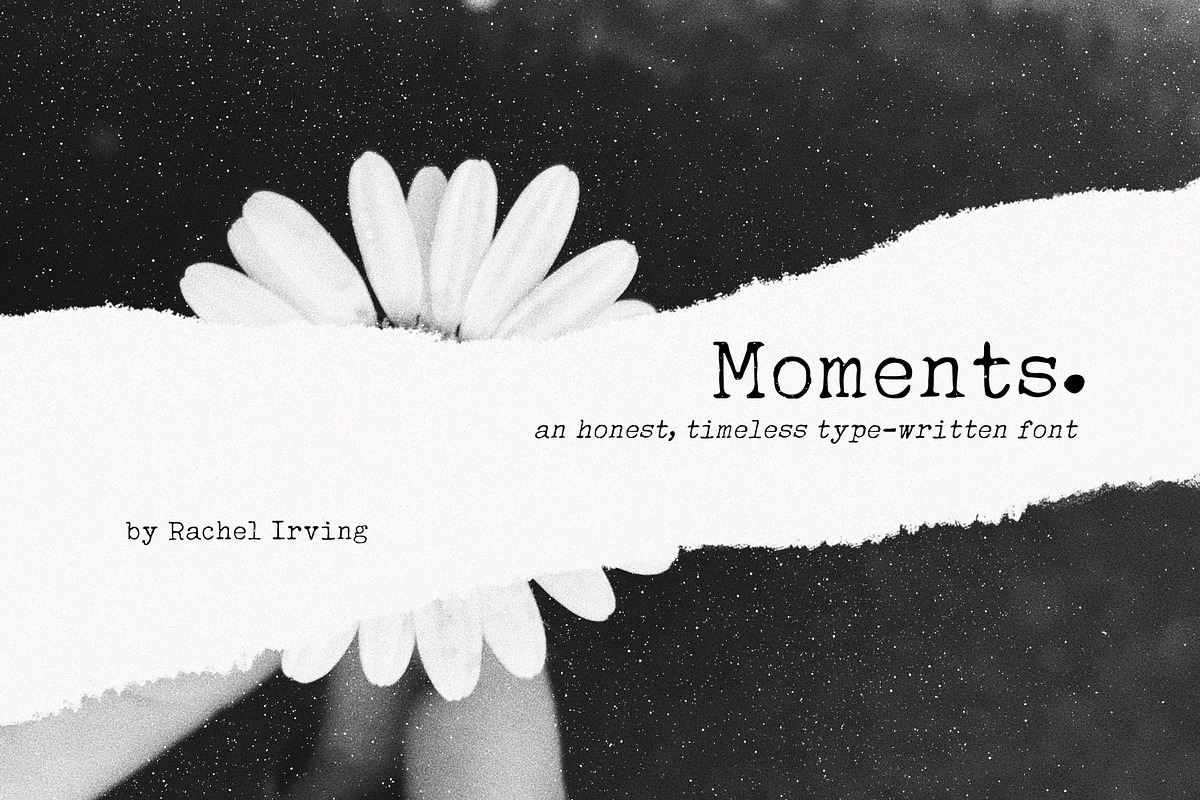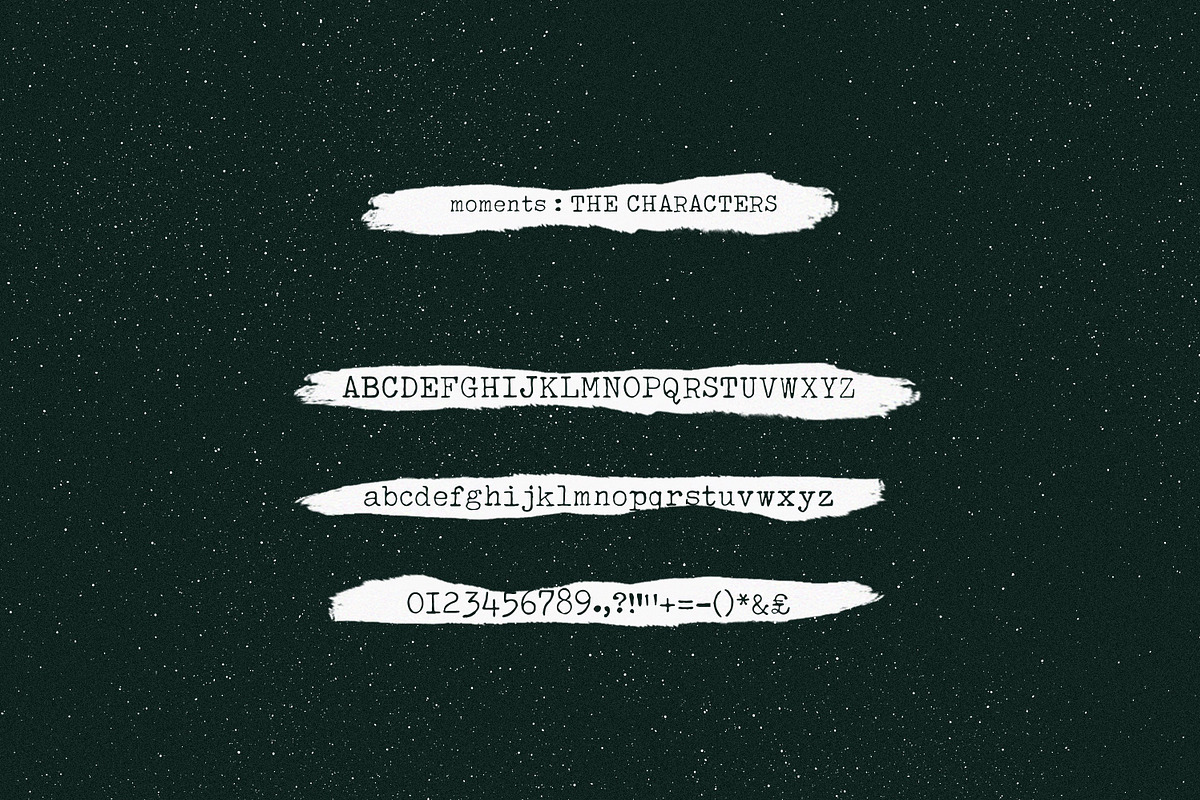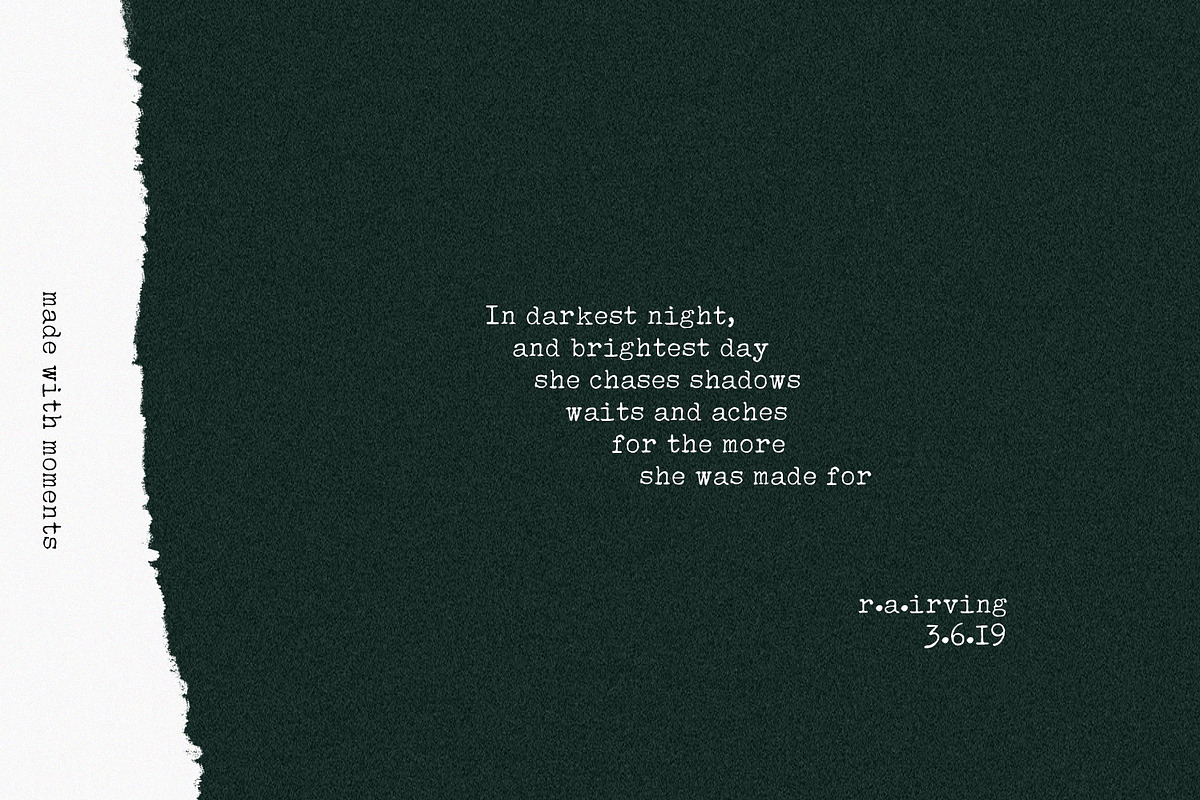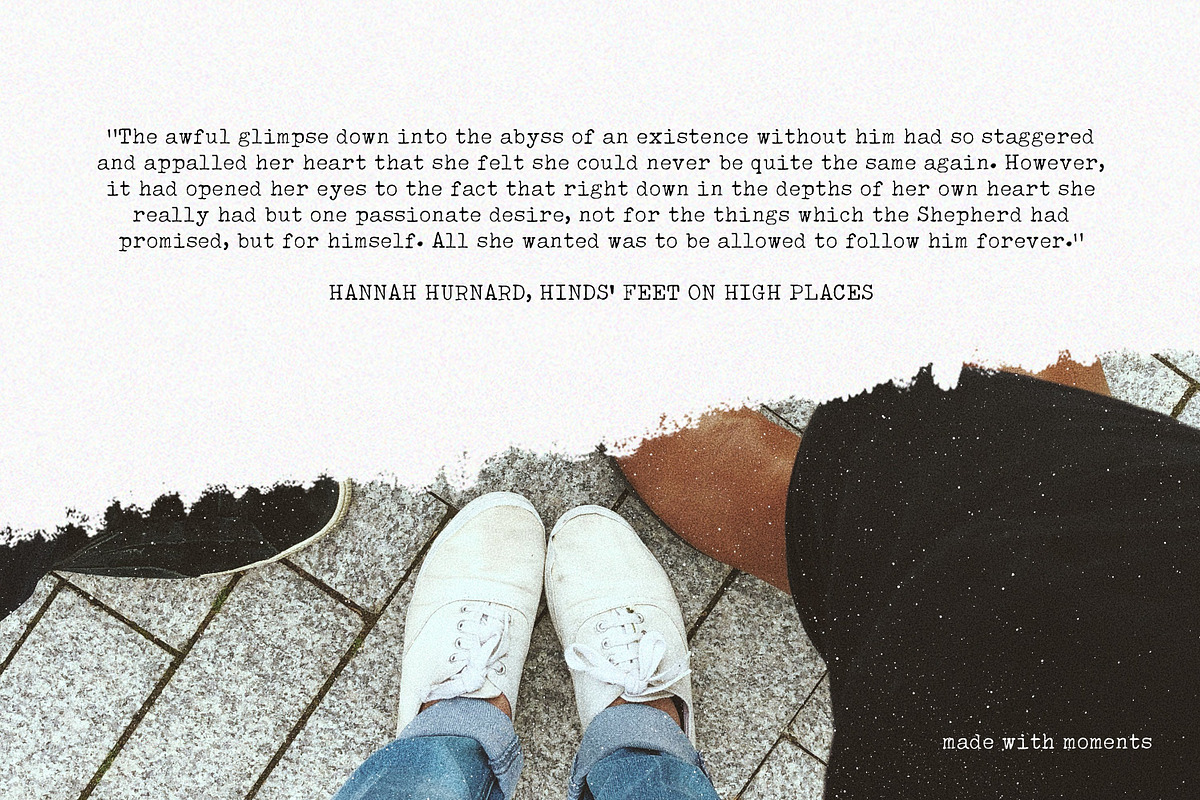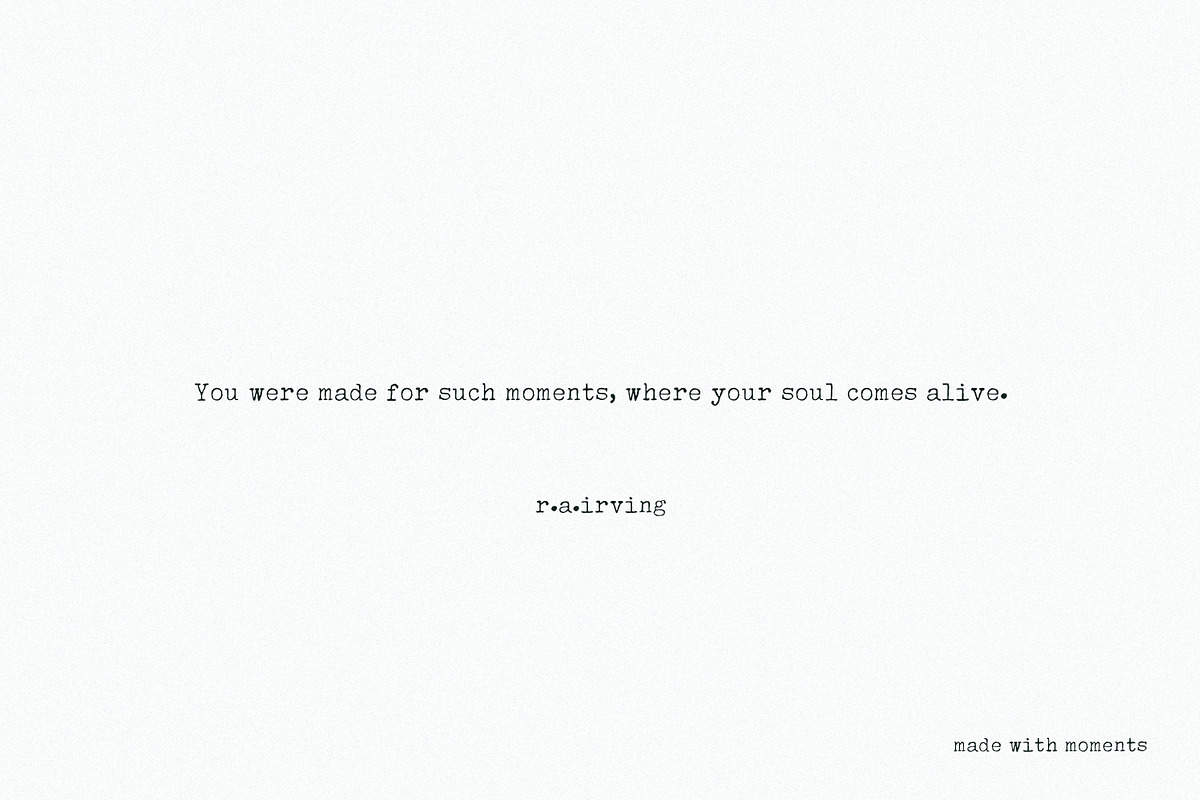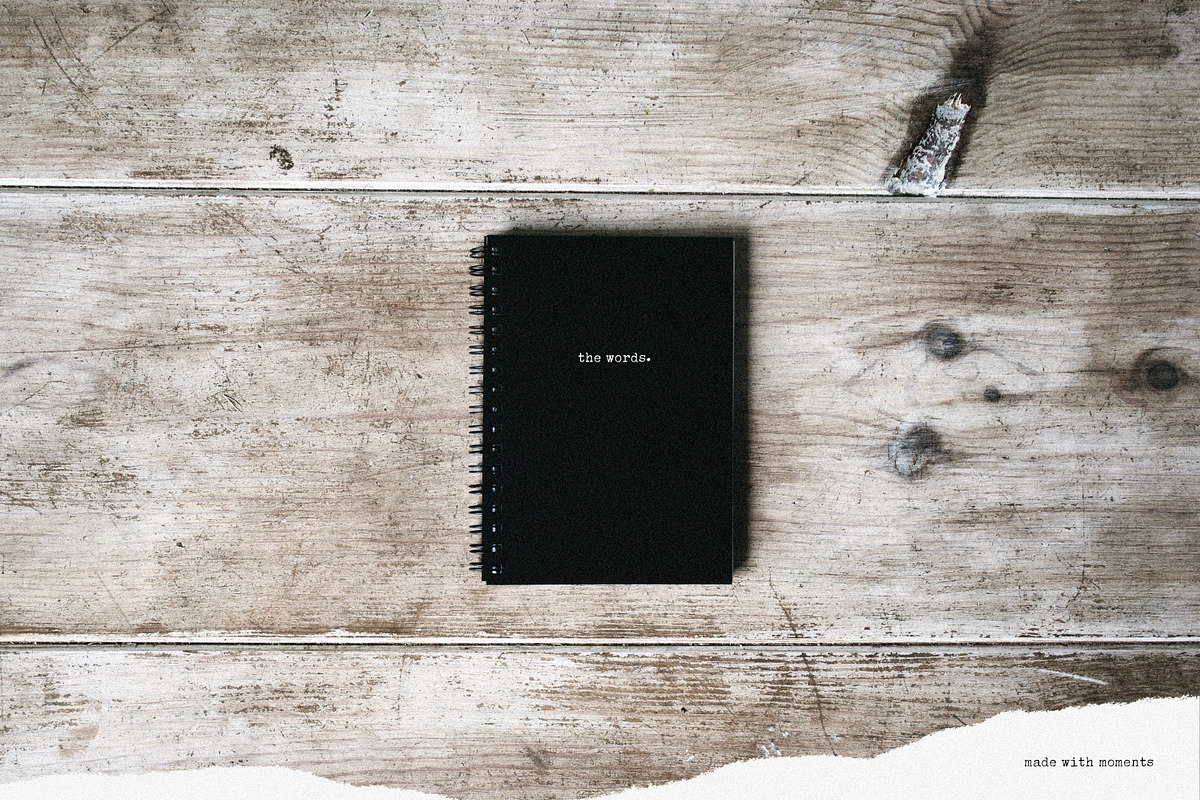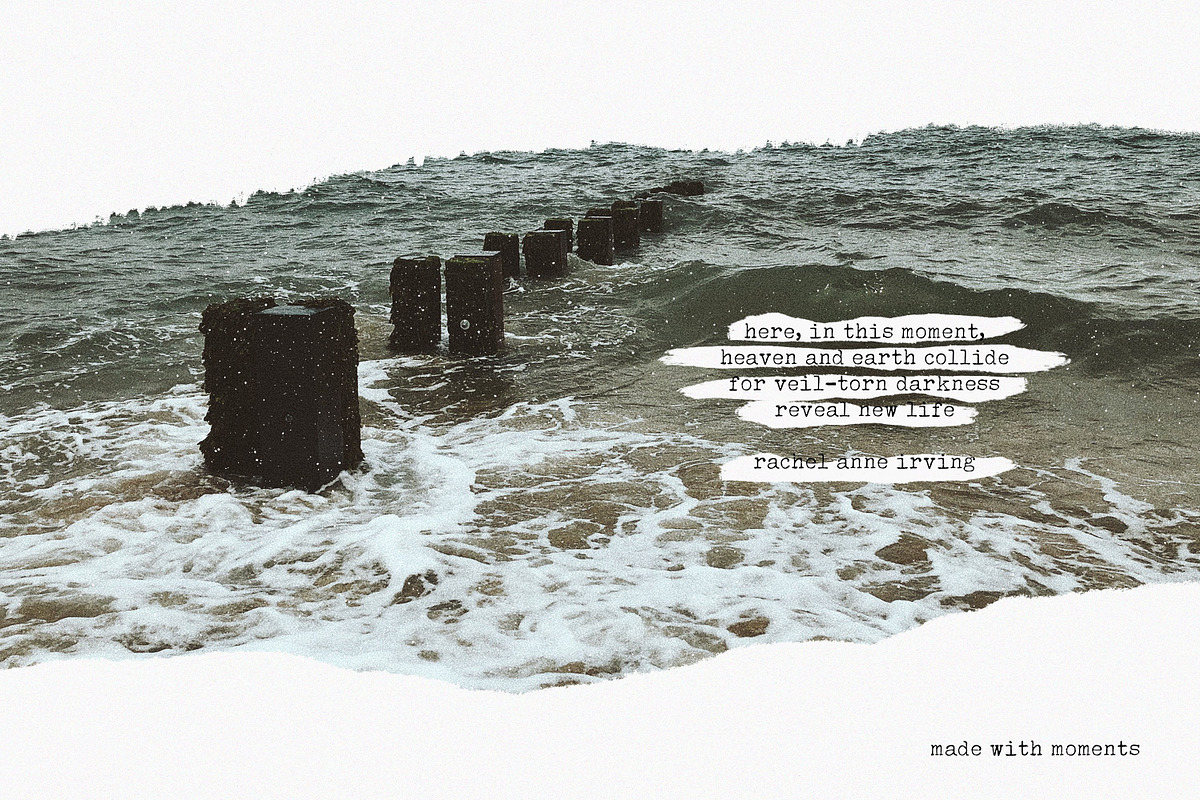
Moments | Typewriter Font
Inspired by fleeting moments: those we have and hold and those same many that fall through our fingertips, Moments is an honest, timeless type-written script font. With an edge of elegance and nostalgia, it endeavours to capture the moments we have.
Intentionally crafted for creators, Moments offers an elegant typographic solution for creative projects.